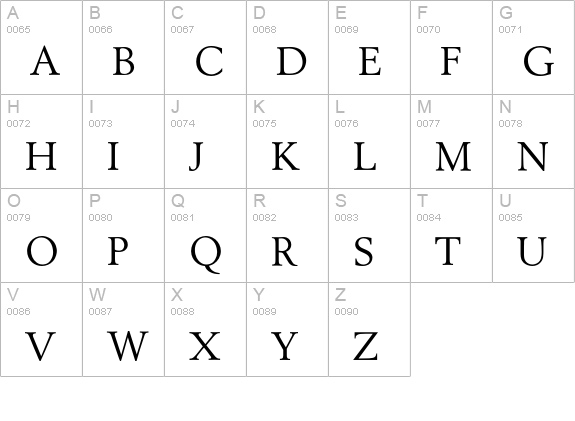
Berling Regular Font Details
Berling Regular is the standard, neutral variant in the Berling typeface family \xE2\x80\x94 well suited to general body text, paragraphs, and standard typographic work.
Berling Regular is a classic and elegant serif font that exudes sophistication and professionalism. Its clean lines and timeless appeal make it suitable for a wide range of design projects, from branding and editorial design to packaging and invitations. The balanced letterforms and strong vertical emphasis give Berling Regular a sense of authority and refinement. What makes Berling Regular even more attractive is that it is available for free download at FontsMarket.com. This means that you can easily access and use this high-quality font in your projects without any cost. Whether you are a designer looking for a versatile serif font or a business owner in need of a stylish typeface for your branding materials, Berling Regular is a fantastic choice that won't break the bank. Download it today and elevate your designs with the timeless beauty of Berling Regular.